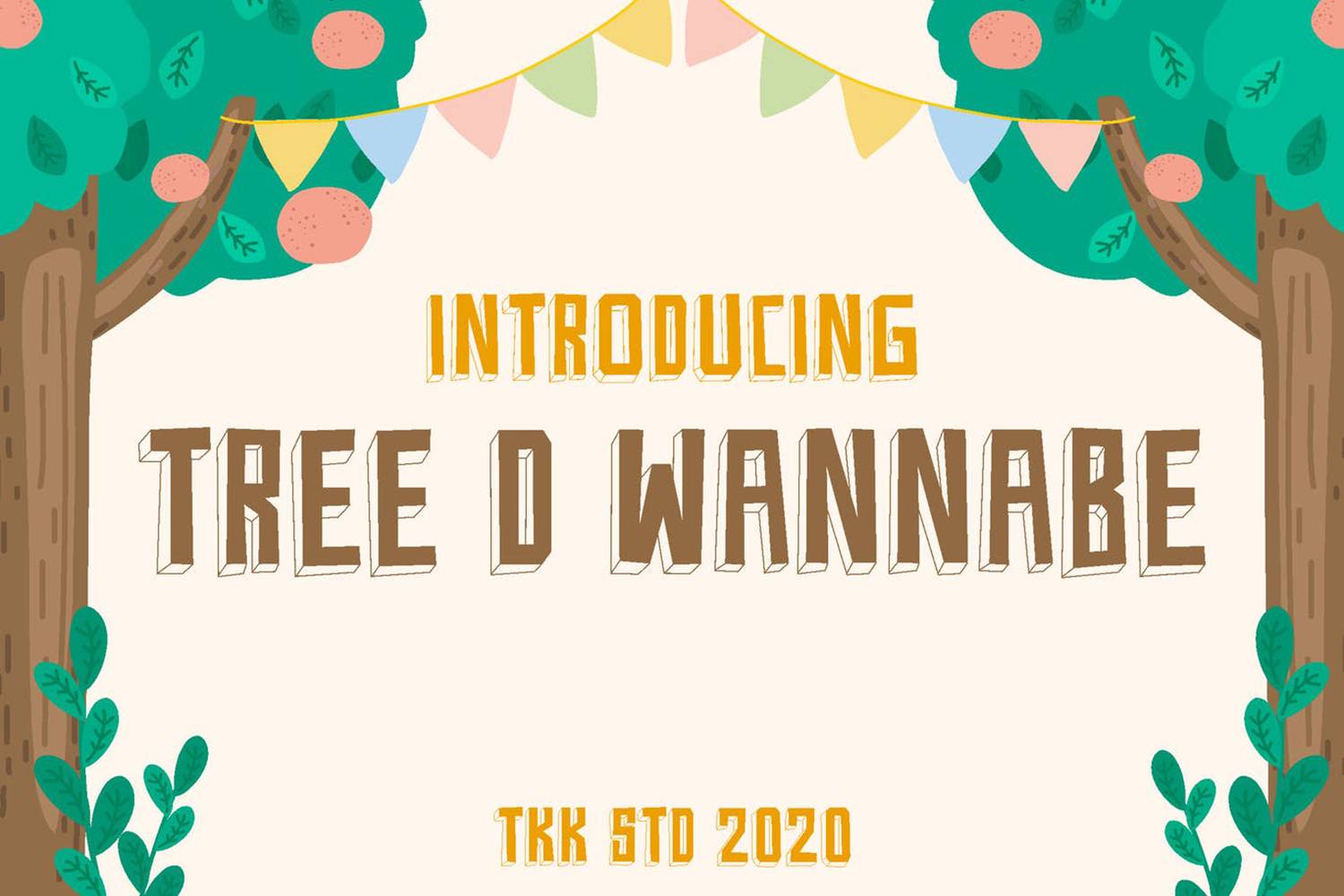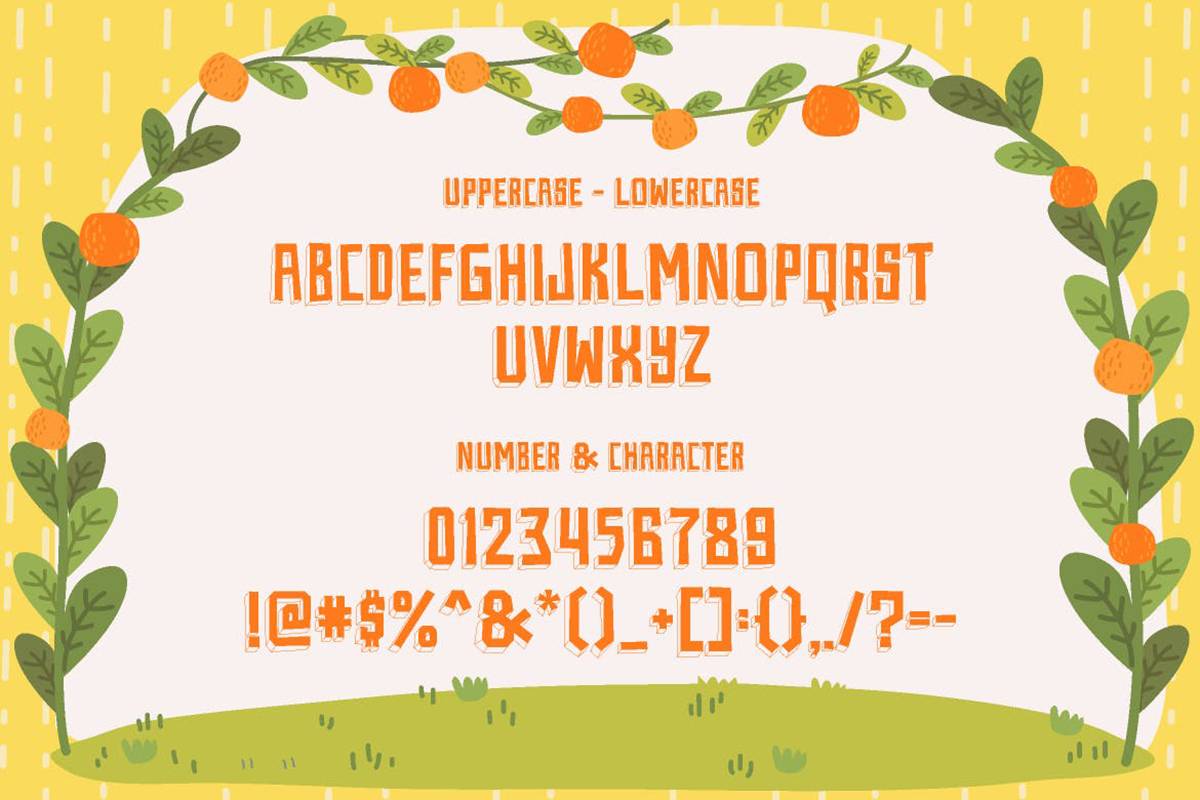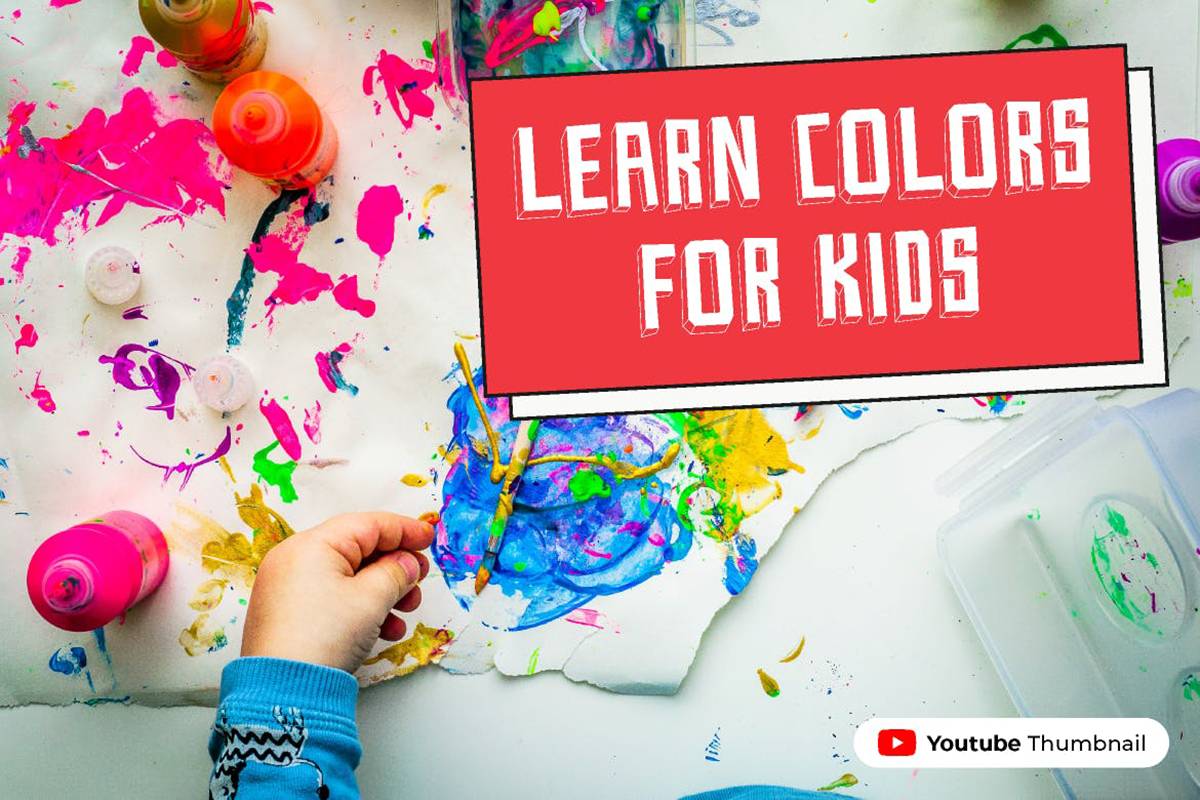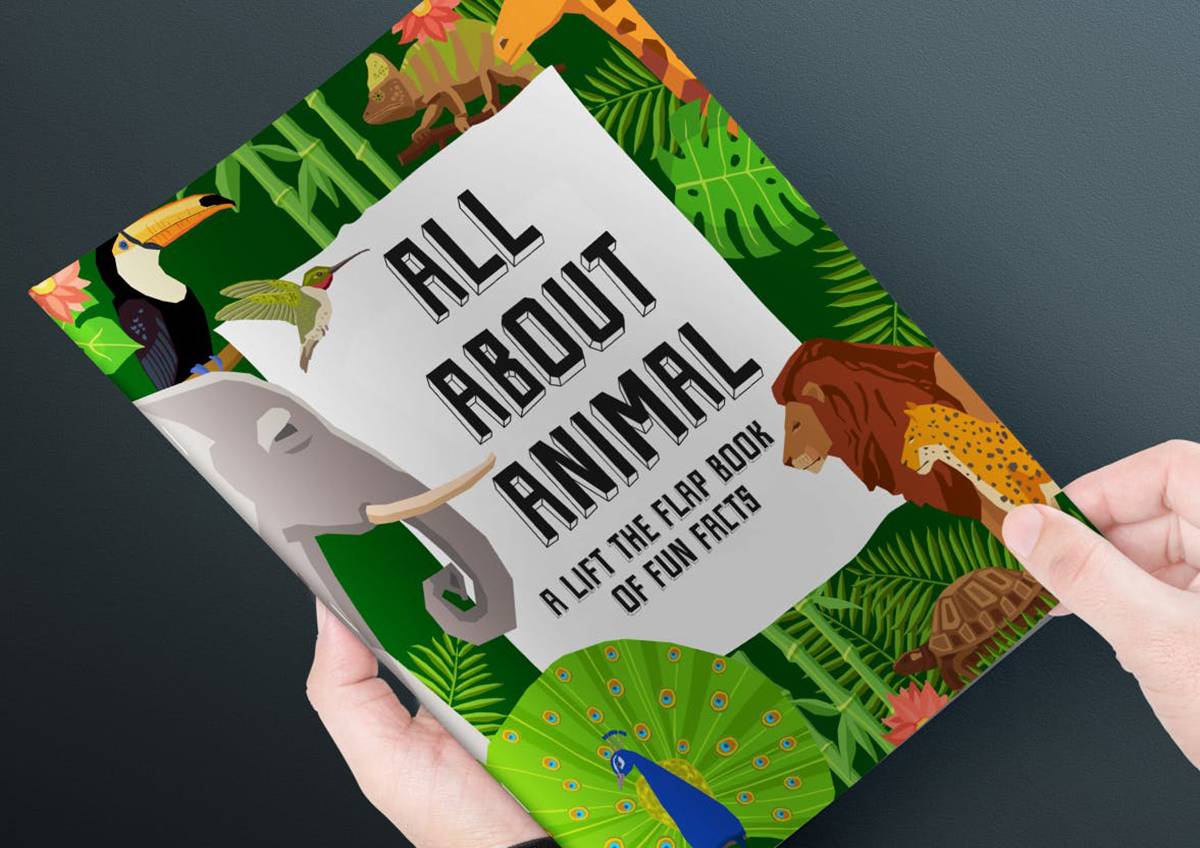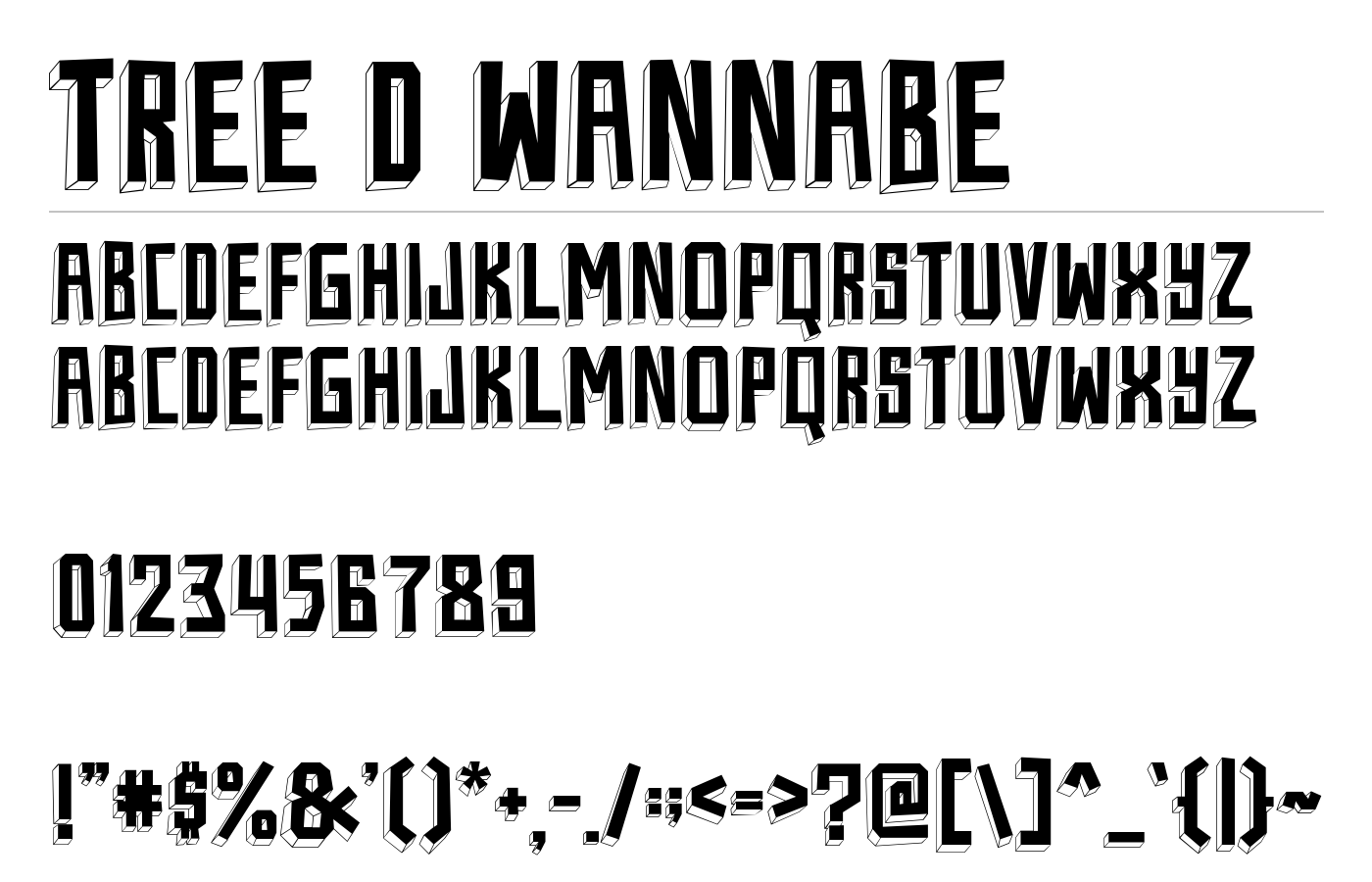
Tree D Wannabe is a bold, condensed sans serif display font with a striking three-dimensional effect created by its sharp, geometric shadows. Its tall, uppercase letterforms and strong contrast between solid black shapes and white outlines give it a dynamic, modern look that grabs attention, perfect for impactful headlines, posters, or branding that needs a standout, edgy style. This font works best where a confident, urban personality is desired, adding a sense of depth and boldness without losing readability.
Tree D Wannabe Font
About Tree D Wannabe Font